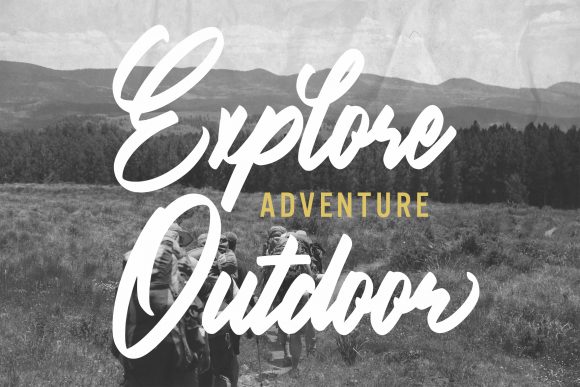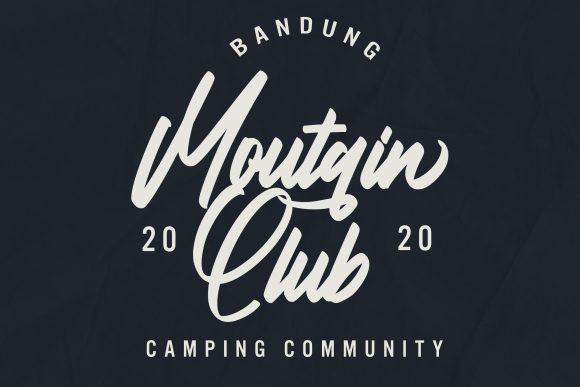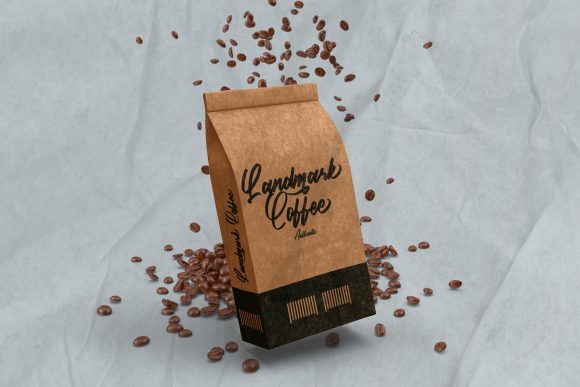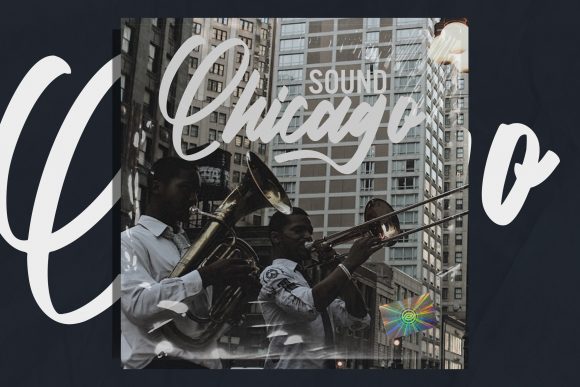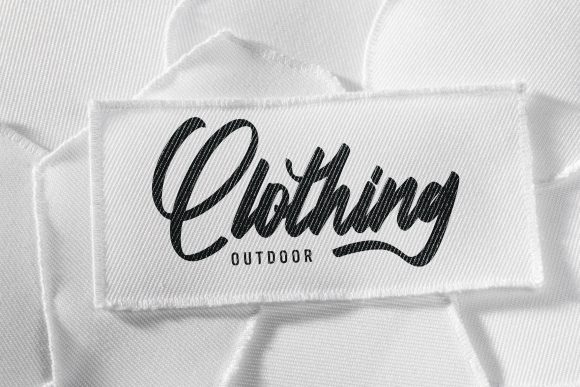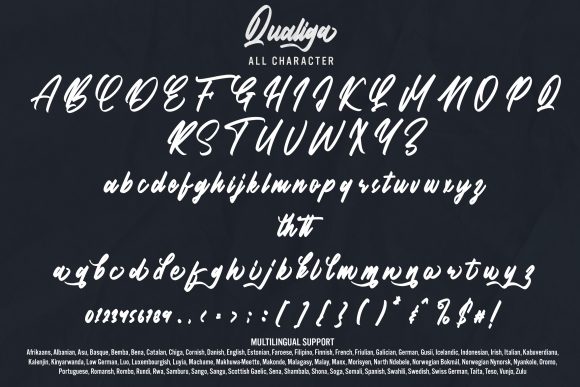
Introduction to Qualiga Font
As a designer, have you ever found yourself scrolling through your favorite design resource websites, searching for the perfect font to match the aesthetic of your latest creative project? Perhaps you’re working on a wedding invitation and want to create a truly unique and eye-catching design. If you’re like many of us, you’ve probably come across the Qualiga Font and fallen in love with its authentic feel.
With its incredibly versatile style, Qualiga Font is a must-have for any designer looking to add a touch of elegance and sophistication to their work. Whether you’re working on a high-quality wedding invitation, a beautiful piece of stationary art, or an eye-catching social media post, Qualiga Font is the perfect choice. And the best part? It’s available for free download, making it an accessible resource for designers of all levels.
Key Features of Qualiga Font
- High-quality font design resource perfect for creative projects, available for free download.
- Unique and stylish design elements make it a great choice for creative projects, such as logos, branding, and typography-based art.
Honest Review: Qualiga Font
As a designer, I’ve come across my fair share of fonts, but Qualiga Font is one that caught my eye. I downloaded it for free and was impressed by its high quality and versatility.
- ✨ The font’s transparent background allows for seamless integration with any design, making it perfect for creative projects.
- ✨ The font’s modern design makes it perfect for both digital and print media, making it a valuable resource for any designer.
- ✨ The font’s high quality ensures that it will look great even at larger font sizes, making it perfect for headings and titles.
However, there are some limitations to keep in mind:
- ⚠️ The font may not be suitable for all design projects, as it’s a bit on the modern side and may not fit with more traditional designs.
- ⚠️ The font’s limited character set may make it difficult to use for more complex designs or text-heavy projects.
Overall, I’m impressed with Qualiga Font and would definitely recommend it as a valuable resource for any designer working on a creative project.
Qualiga Font
Tips for Getting the Most Out of Qualiga Font
To get the most out of Qualiga Font, use it in combination with other design elements to create a visually appealing design. Experiment with different font sizes and colors to achieve the desired look.
The Qualiga Font is suitable for a wide range of creative projects, including logos, business cards, and social media graphics. It’s also perfect for use in presentations, documents, and websites.
Can I customize the Qualiga Font for my specific design project?
Yes, you can customize the Qualiga Font to suit your design project. The font is designed to be highly customizable, and you can easily edit the font to create a unique look for your project. Additionally, the transparent background feature allows you to easily place the font over any design element, giving you more creative freedom.